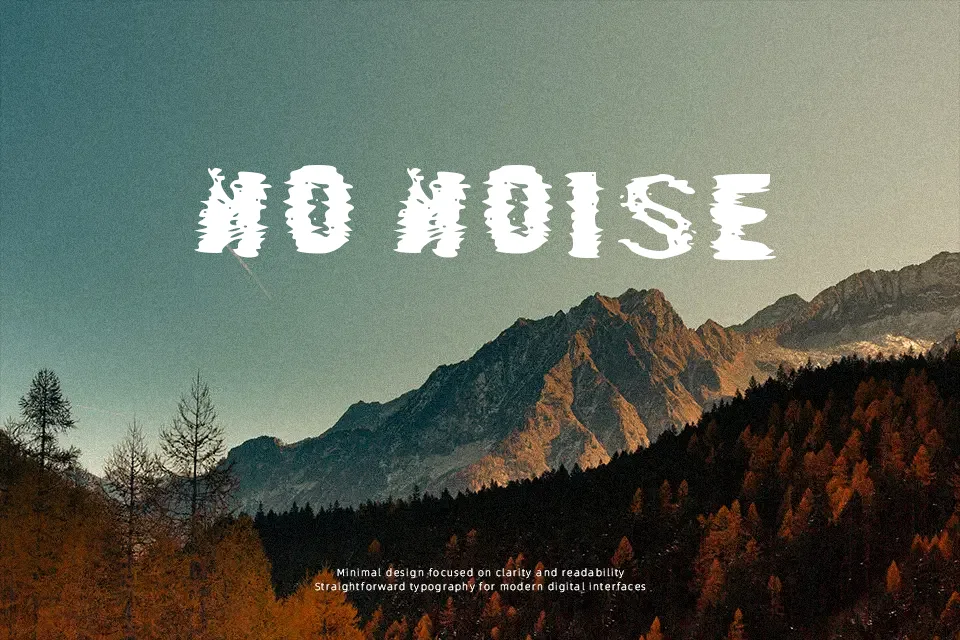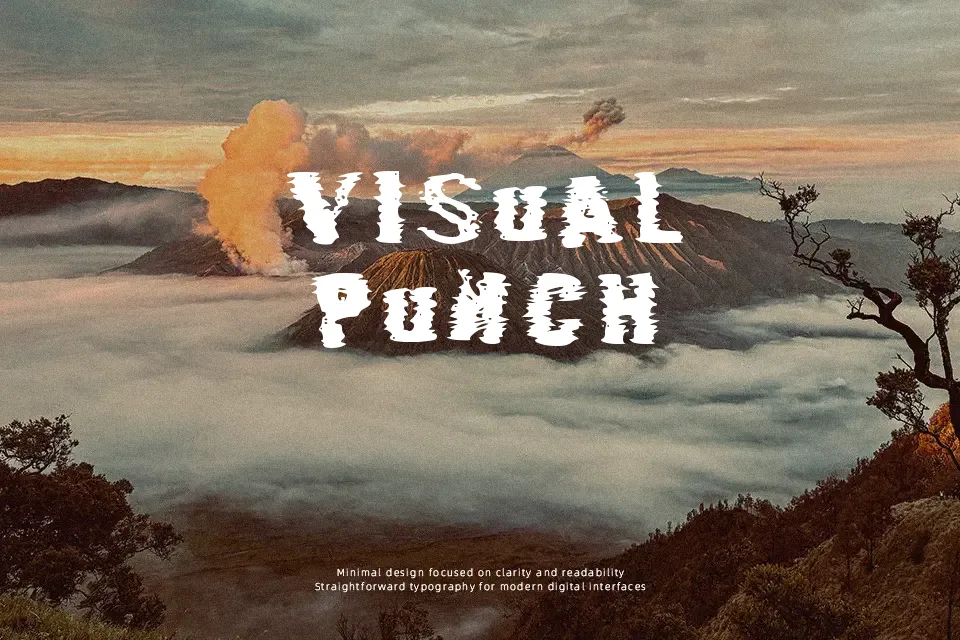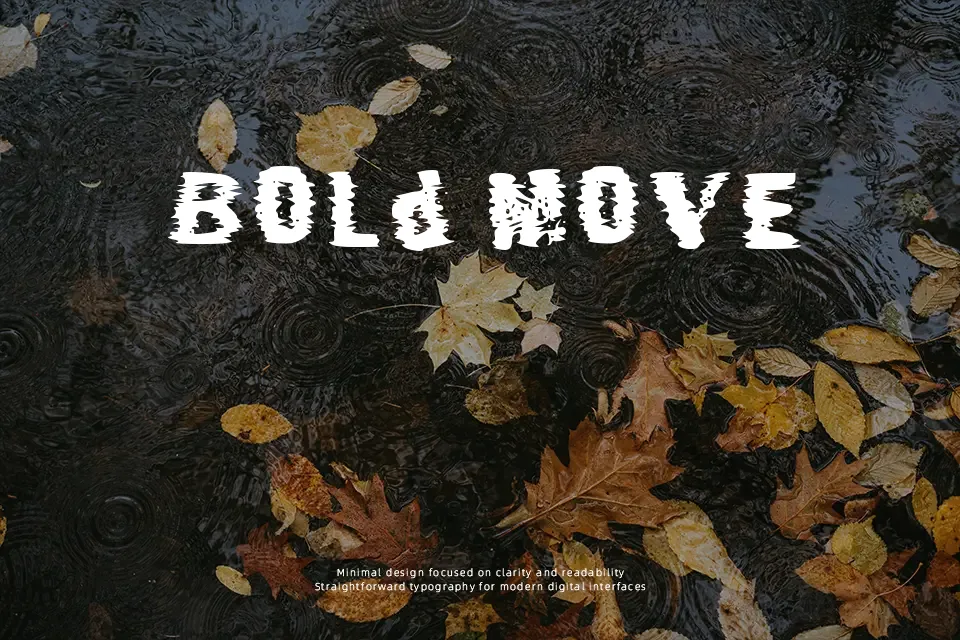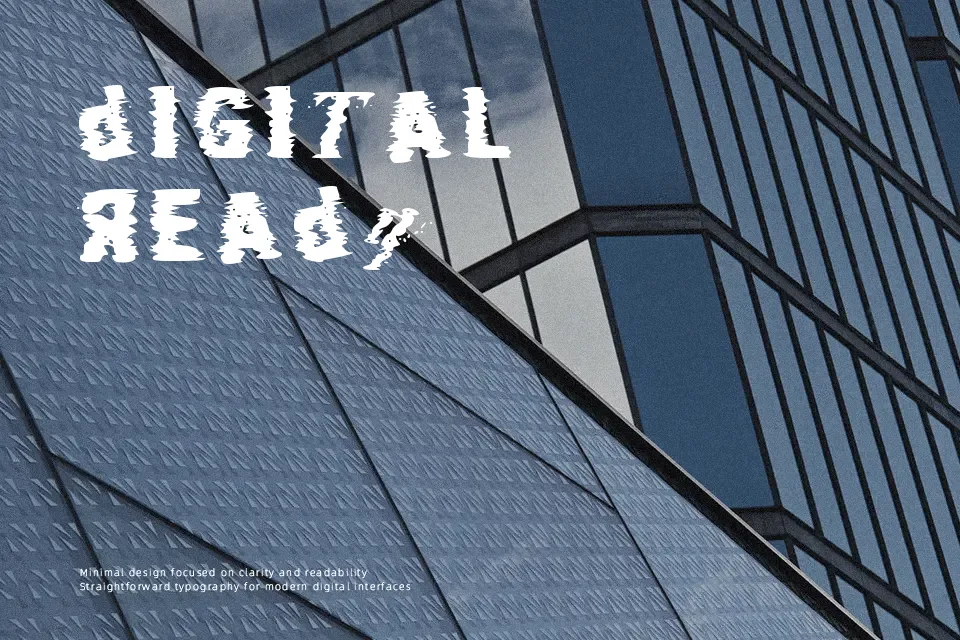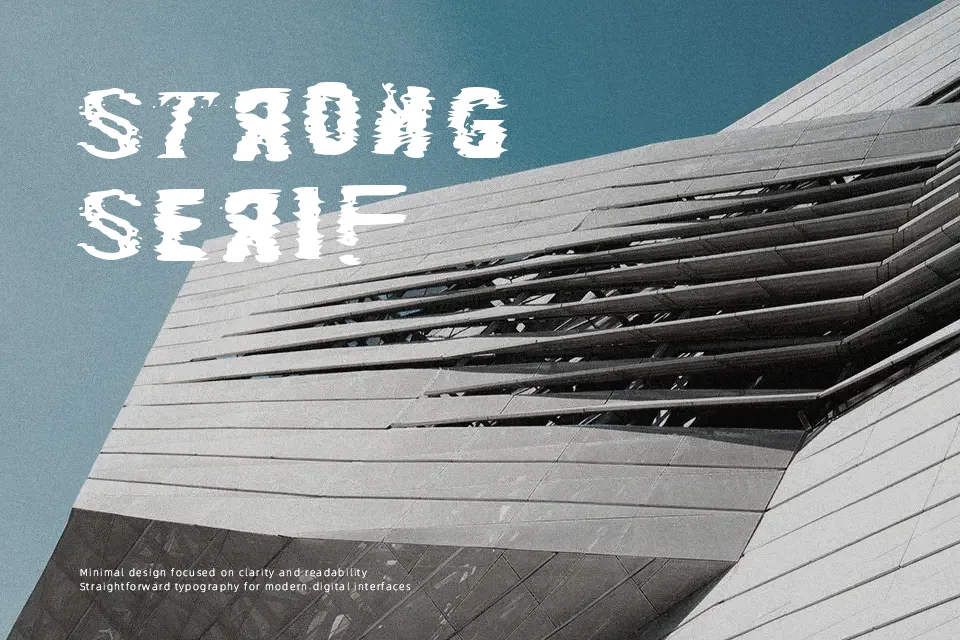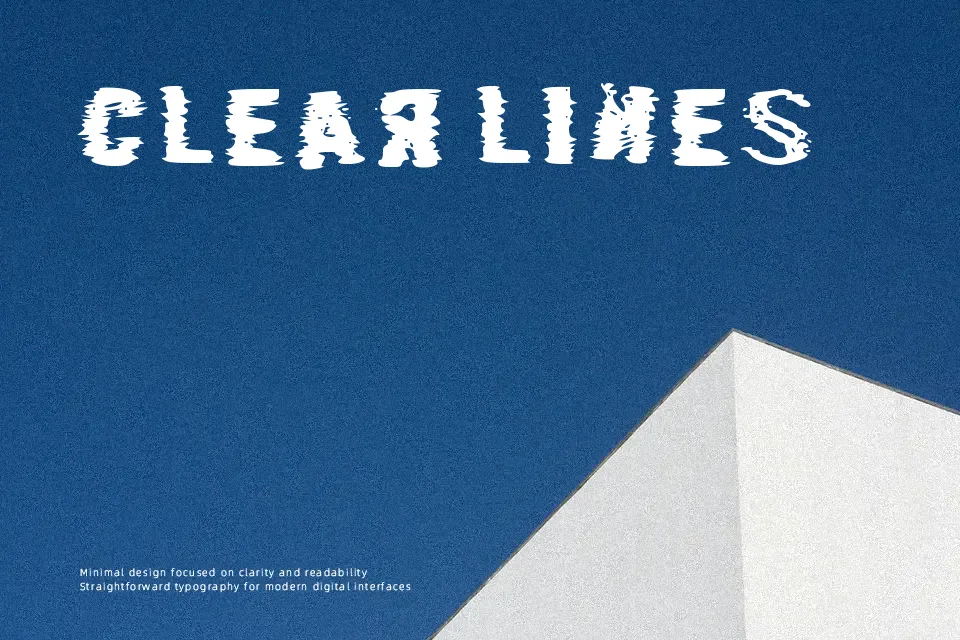
BL Mindfuck Font
Designed by Blobify
Visually striking and deliberately chaotic, BL Mindfuck features warped strokes, irregular weighting, and tight, unpredictable spacing that disrupts traditional typographic structure. The overall impression is heavily decorative, channeling an intense, grunge aesthetic that demands the viewer’s immediate attention. This display typeface shines in underground music promotions, edgy streetwear apparel graphics, and disruptive editorial layouts where conventional legibility takes a backseat to raw artistic expression. It strongly resonates with rebellious, trippy visual themes. Conversely, its heavily distorted characters make it an ineffective option for long-form body text or formal corporate branding, where clear communication is non-negotiable. Compared to standard glitch fonts, it carries a more fluid, organic distortion rather than rigid digital fragmentation.
Underground music album covers
Disruptive event poster designs
Edgy streetwear apparel graphics
High-impact editorial headlines
Long-form body text reading
Formal corporate brand identities
UI design and small screen displays
Perfect for fashion, headline, and music, with a artistic and decorative style.